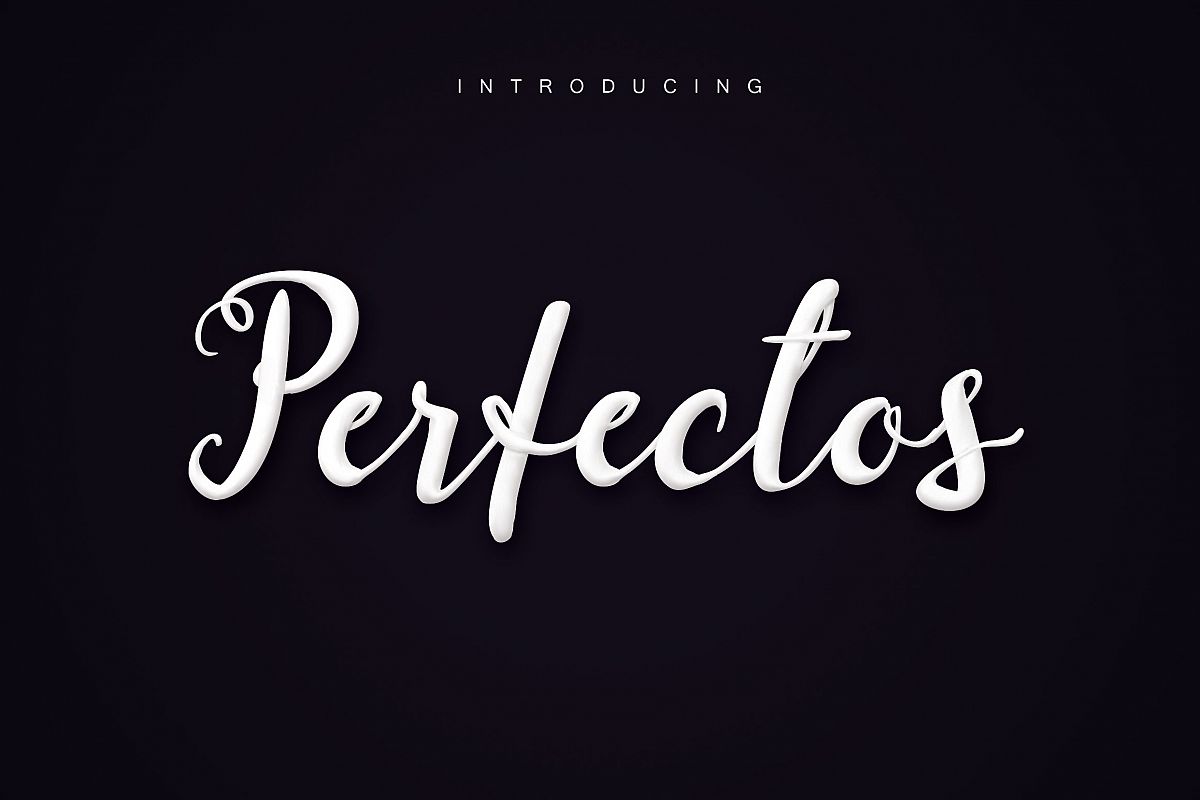
Perfectos Script
Say hello to Perfectos Script, a new cute font for your design
arsenal. This font have 275 characters who support Latin and Eastern
Europe characters.